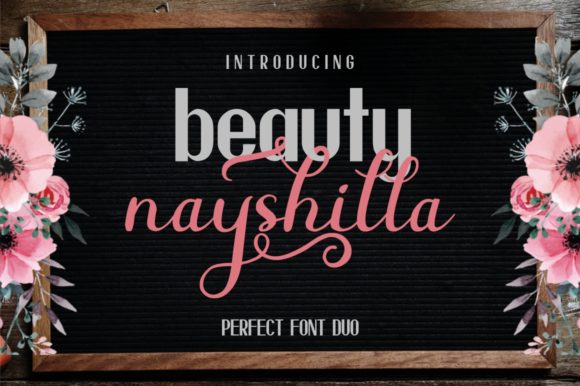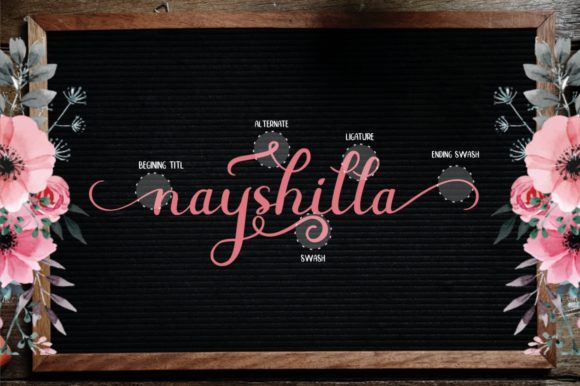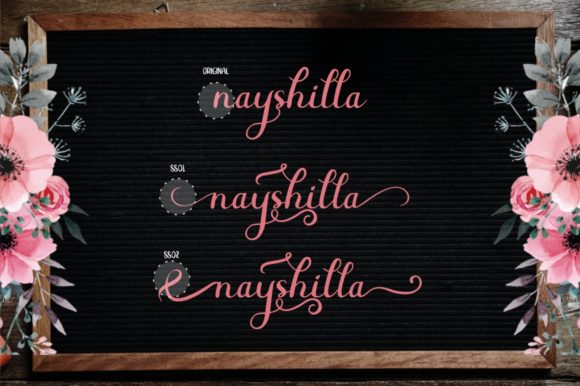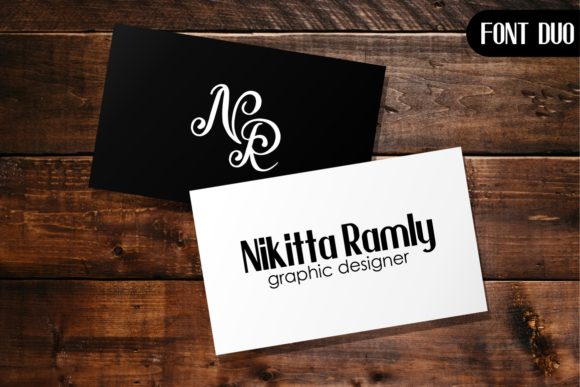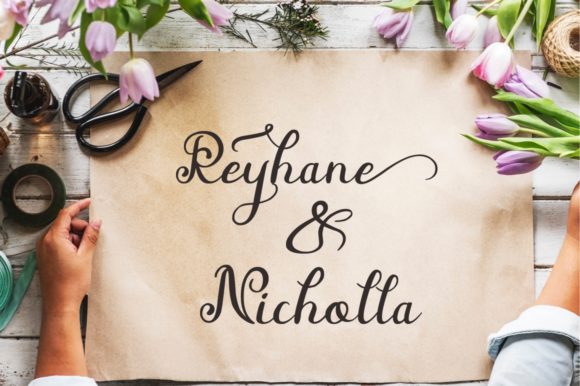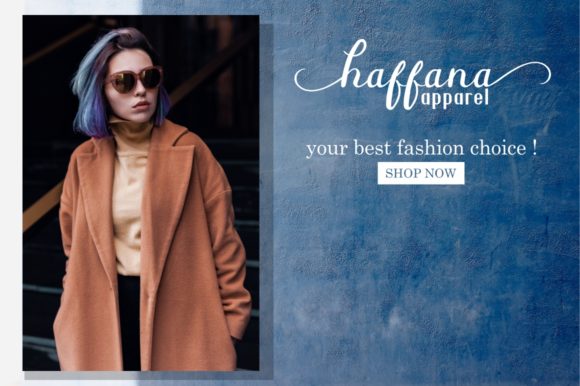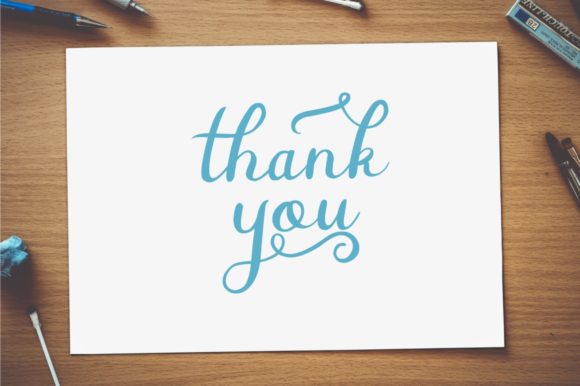
Beauty Nayshilla Duo Font
About Beauty Nayshilla Duo Font
The Beauty Nayshilla is a modern font duo. Both styles can be combined perfectly but are also great as strong standalone’s.